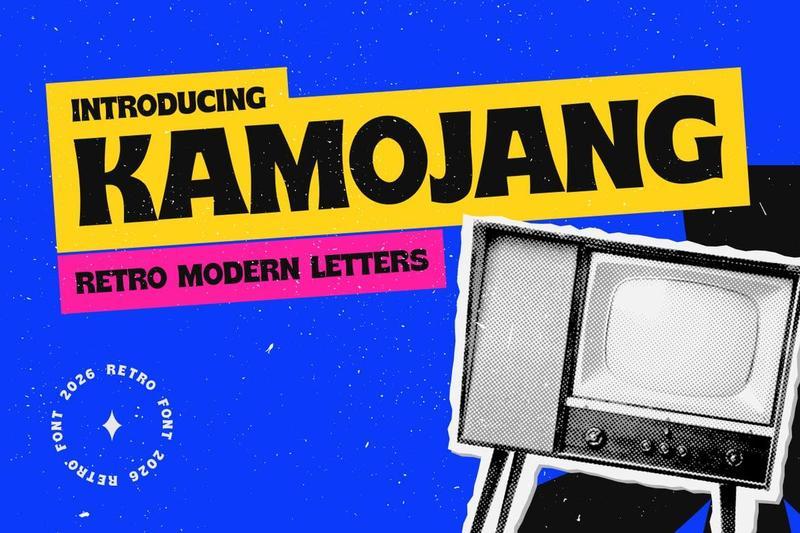
**Kamojang** is a bold retro modern display font that blends nostalgic charm with contemporary design appeal. Featuring chunky letterforms, soft curves, and expressive personality, it delivers a striking visual presence that captures attention while maintaining a fun and approachable character.
Why you’ll love using Kamojang:
* Creates impactful headlines with a strong retro vibe
* Perfect for posters, branding, packaging, and merchandise
* Combines vintage inspiration with modern versatility
* Adds warmth, energy, and personality to creative projects
Features:
* Uppercase & Lowercase
* Numbers & Punctuation
Designed for creatives seeking memorable typography, this typeface brings bold expression and timeless appeal to logos, social media graphics, advertising campaigns, product packaging, and eye-catching promotional materials.